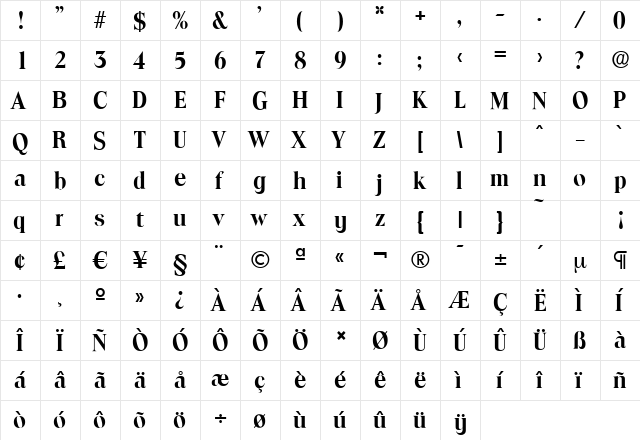
ToledoSerial Bold Font Preview
ToledoSerial Bold
ToledoSerial Bold Font Details
Design Context for ToledoSerial Typeface
ToledoSerial is a composed and adaptable typeface that performs quietly and consistently across a wide range of design contexts. The heavy weight commands attention and anchors typographic hierarchies.